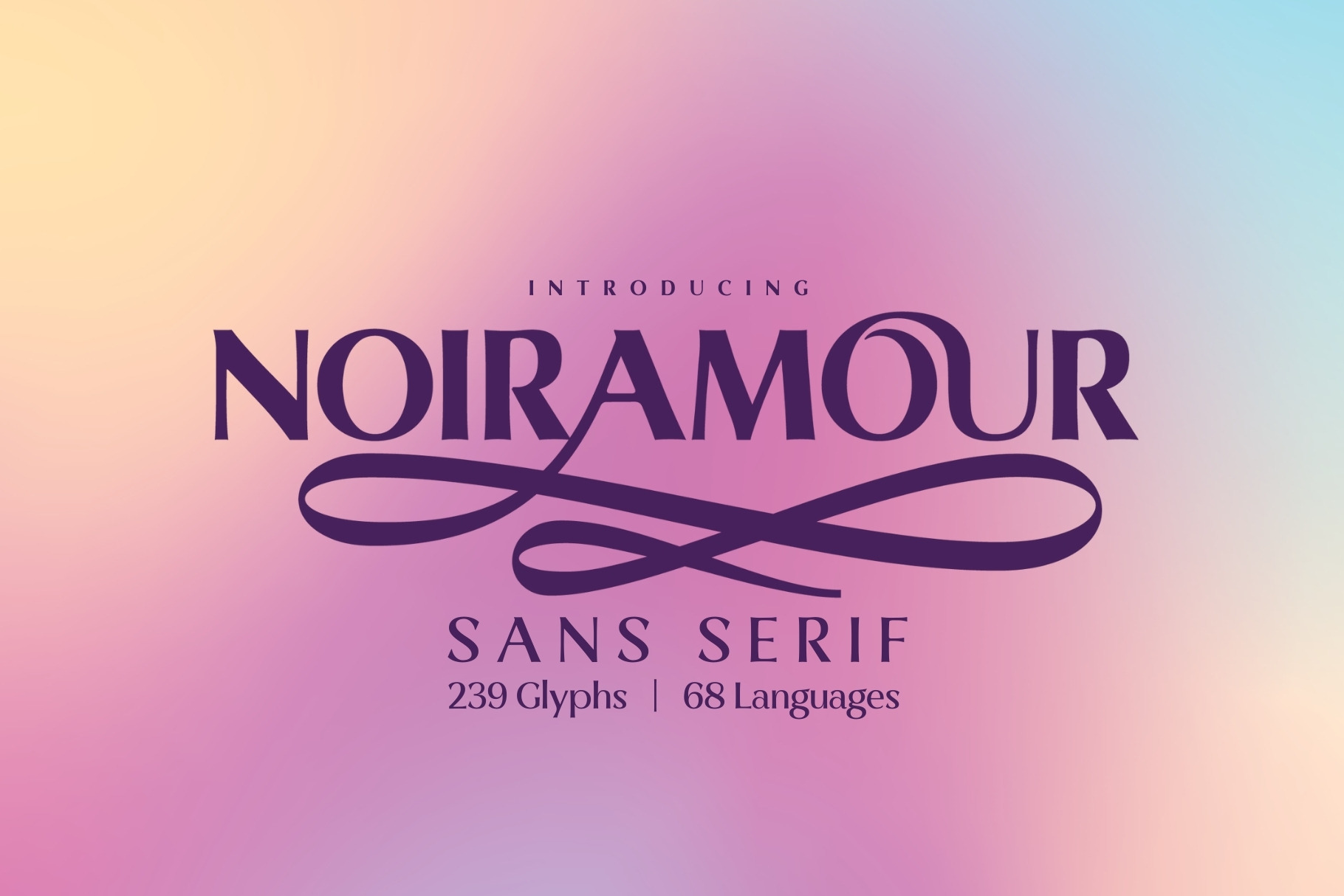
Noir Amour - Sans Serif Typeface
Introducing Noir Amour, a refined and stylish variable sans serif typeface crafted for designers who demand versatility, elegance, and absolute professional quality. Built to be a true workhorse, Noir Amour delivers flawless performance across branding, editorial layouts, web design, packaging, and any project where clarity and sophistication must work hand in hand.
Featuring 5 meticulously crafted weights — Thin, Light, Regular, Medium, and Bold — this typeface adapts effortlessly to any visual tone, from ultra-minimal luxury to strong, authoritative statements. With 239 glyphs and support for 68 languages, Noir Amour ensures global consistency while maintaining its signature modern elegance.
Its clean geometry, subtle curves, and graceful proportions make it perfect for high-end brands, design studios, magazines, fashion labels, tech companies, and any creator seeking a sans serif that is as beautiful as it is dependable.
Whether you need a sleek headline, a polished logo, or a reliable text font for long-form reading, Noir Amour rises to the challenge.
Professional. Versatile. Timeless. Noir Amour is the modern classic your font library has been waiting for.